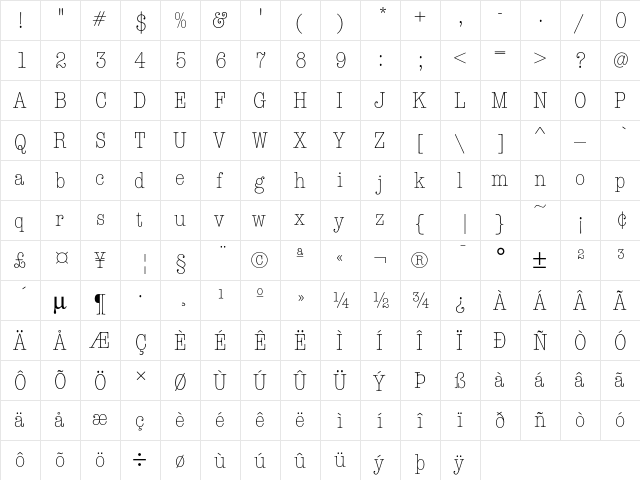
AmTypewriterEF LightCond
Design Context for AmTypewriterEF Typeface
AmTypewriterEF brings the precise, column-aligned rhythm of monospaced typography to designs that value technical clarity and systematic order. Its slender proportions lend an understated elegance to any composition.
Well-suited to data-driven dashboards, coding tutorials, and any design that wants to reference the world of programming.
Pro Tip: Use AmTypewriterEF with slightly increased line-height for extended reading — fixed-width spacing can feel dense in longer passages without extra breathing room.